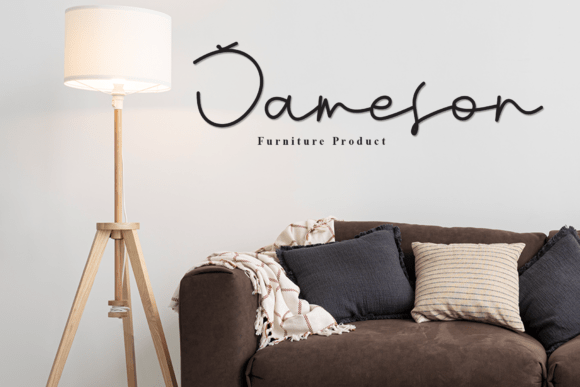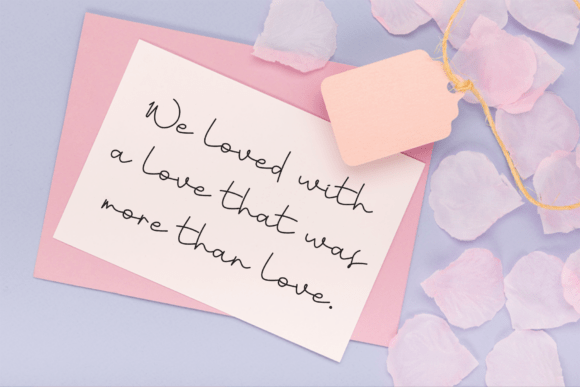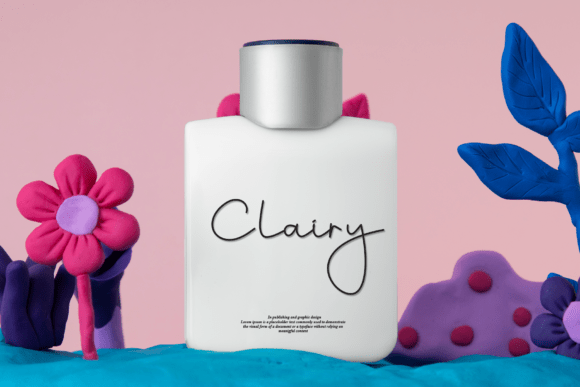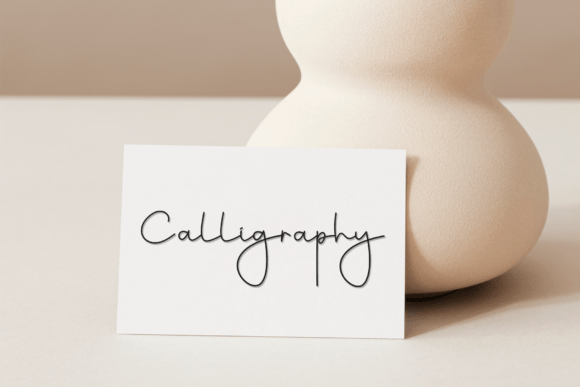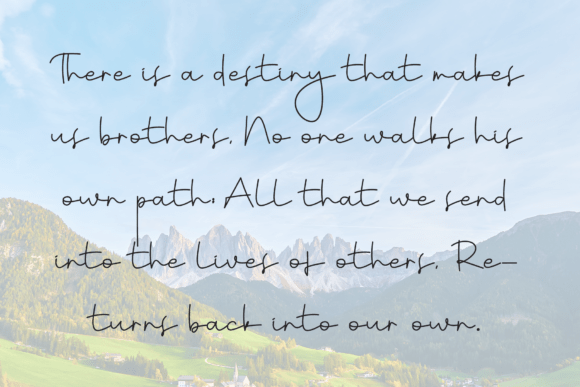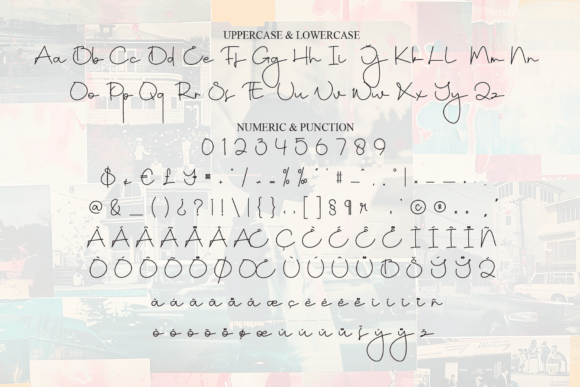
Introduction to Montages Font
Do you remember the moment when a font choice completely transformed your design project? For many of us, it’s a game-changer that can elevate our creative vision from ordinary to extraordinary. I still recall the thrill of stumbling upon the perfect handwritten script font that captured the essence of my brand’s personality. If you’re a designer looking for that magic moment, you’re in luck. Introducing Montages Font, a modern masterpiece that’s about to become your new go-to design resource.
This stunning typeface is more than just a pretty face – it’s a game-changer for designers who crave high-quality, unique visuals that set their projects apart. With its delicate, monoline paths and airy character spacing, Montages Font is perfect for creating a sense of luxury and sophistication in your designs. Whether you’re working on a fine photography watermark, an upscale cosmetic brand, or a romantic wedding invitation, this font is sure to be a showstopper.
Key Features of Montages Font
- High-quality, professional design resource suitable for creative projects
- Unique, handcrafted style with intricate details, making it perfect for artistic projects
- Includes a wide range of characters, including uppercase and lowercase letters, numbers, and punctuation
Honest Review: Montages Font
As a designer, I’m always on the lookout for high-quality design resources that can elevate my creative projects. The Montages Font is one such resource that caught my attention, and I’m excited to share my honest review with you.
- ✨ Unique and creative style that can add a touch of sophistication to any design project.
- ✨ High-quality font that is perfect for creating visually appealing headers, titles, and other text elements.
- ✨ Offers a transparent background option, making it easy to use with different design elements and backgrounds.
- ⚠️ Limited character set, which may not be ideal for long-form text or extensive content creation.
- ⚠️ May not be suitable for all design styles or themes, as it has a distinctive and bold look.
Overall, I’m impressed with the Montages Font and its potential to enhance creative projects. While it has some limitations, its unique style and high-quality design make it a valuable resource for designers. If you’re looking for a font that can add a touch of creativity to your designs, I’d definitely recommend giving it a try.
Tips for Getting the Most Out of Montages Font
For best results, use Montages Font with a transparent background to create a clean and modern look. You can also experiment with different font sizes, colors, and combinations to find the perfect fit for your creative project.
Montages Font is perfect for a variety of creative projects, including logo designs, social media graphics, and presentation slides. Its high-quality design and transparent background make it a versatile and useful design resource.